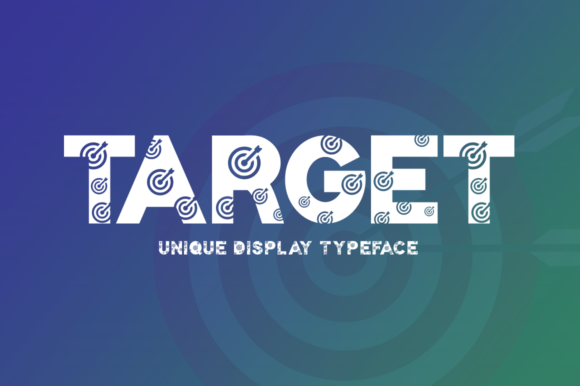
Step into the realm of limitless creativity with Target, an extraordinary display font that empowers you to craft captivating titles that command attention and leave an unforgettable impression on every reader. Born from the visionary minds at Seemly Fonts, Target is a masterpiece that transcends the boundaries of ordinary typography, propelling your designs to new heights of excellence.
Target's bold and chunky letters exude an aura of confidence and authority, making it the perfect choice for titles that demand to be noticed. Its unique character and unconventional design set it apart from the mundane, ensuring that your words stand out from the crowd and resonate with your audience on a deeper level.
With Target as your secret weapon, you'll discover a world of possibilities for your titles. Whether you're crafting the cover of a captivating novel, designing an eye-catching poster, or creating a memorable logo, Target has the versatility to meet your every need. Its bold strokes and chunky proportions adapt effortlessly to any context, adding an instant touch of sophistication and flair.
Beyond its aesthetic appeal, Target is a font that speaks to the heart. Its bold and confident demeanor empowers you to express your creativity without hesitation. Whether you're a seasoned designer or just starting your journey into the world of typography, Target will guide you towards creating titles that captivate, inspire, and leave a lasting impression.
Unlock your creative potential with Target, the display font that transforms your titles into works of art. Its bold and chunky letters, coupled with its versatility and emotional depth, make it the perfect companion for designers of all levels. Experience the power of Target today and elevate your designs to new heights of brilliance.